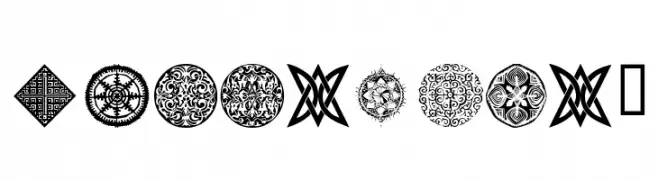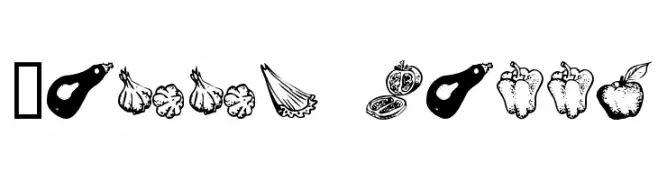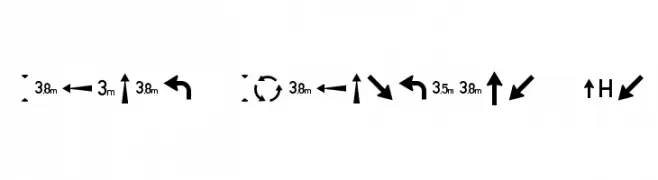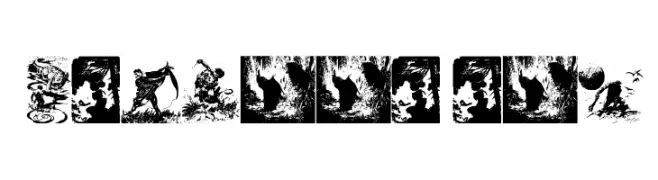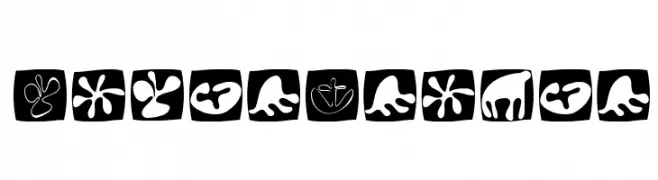
( Fonts by James Cianciaruso - Ablaze )
Hand-drawn produce illustrations replace letters and numbers.
A comprehensive set of bold, clear transportation and road signage icons.
( Fonts by The Scriptorium - Dave Nalle )
Ornamental medieval tile-inspired decorative font.
( Fonts by bob istheowl http://luc.devroye.org/bobistheowl.html )
Illustrative font with fantasy-themed scenes for each character.
A geometric pictogram icon set for Olympic sports and symbols.
( Fonts by www.fontalicious.com )
A playful set of pixelated icons with a retro video game aesthetic.
( Fonts by Blue Vinyl - Jess Latham - www.bvfonts.com )
A 1970s-themed decorative dingbat font with iconic retro illustrations.
( Fonts by Manfred Klein - manfred-klein.ina-mar.com )
A decorative font featuring abstract floral motifs within square frames.
( Fonts by www.junkohanhero.com )
An eclectic display font made from assembled object photographs.
( Fonts by bob istheowl http://luc.devroye.org/bobistheowl.html )
Photographic portrait-based decorative display font.
( Fonts by bob istheowl http://luc.devroye.org/bobistheowl.html )
Photographic portrait glyphs in a decorative, high-contrast style.
( Fonts by bob istheowl http://luc.devroye.org/bobistheowl.html )
A display font using portrait images for each character.
( Fonts by bob istheowl http://luc.devroye.org/bobistheowl.html )
A pictorial font using stylized portraits for each character.
( Fonts by bob istheowl http://luc.devroye.org/bobistheowl.html )
Photographic silhouette display font with unique images for each character.
( Fonts by Manfred Klein - manfred-klein.ina-mar.com )
Ornate woodcut illustrations with a vintage, handcrafted feel.
( Fonts by Steve Ferrera )
A bold, decorative dingbat font with illustrated character icons.